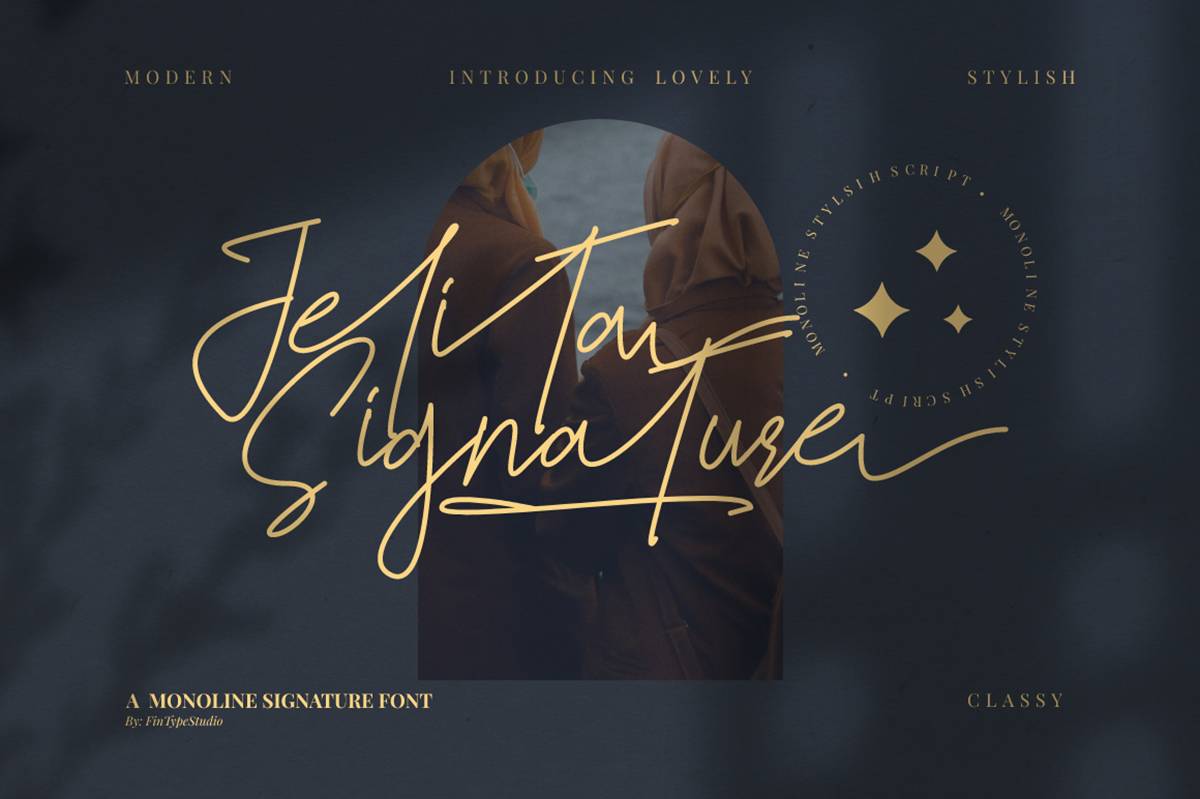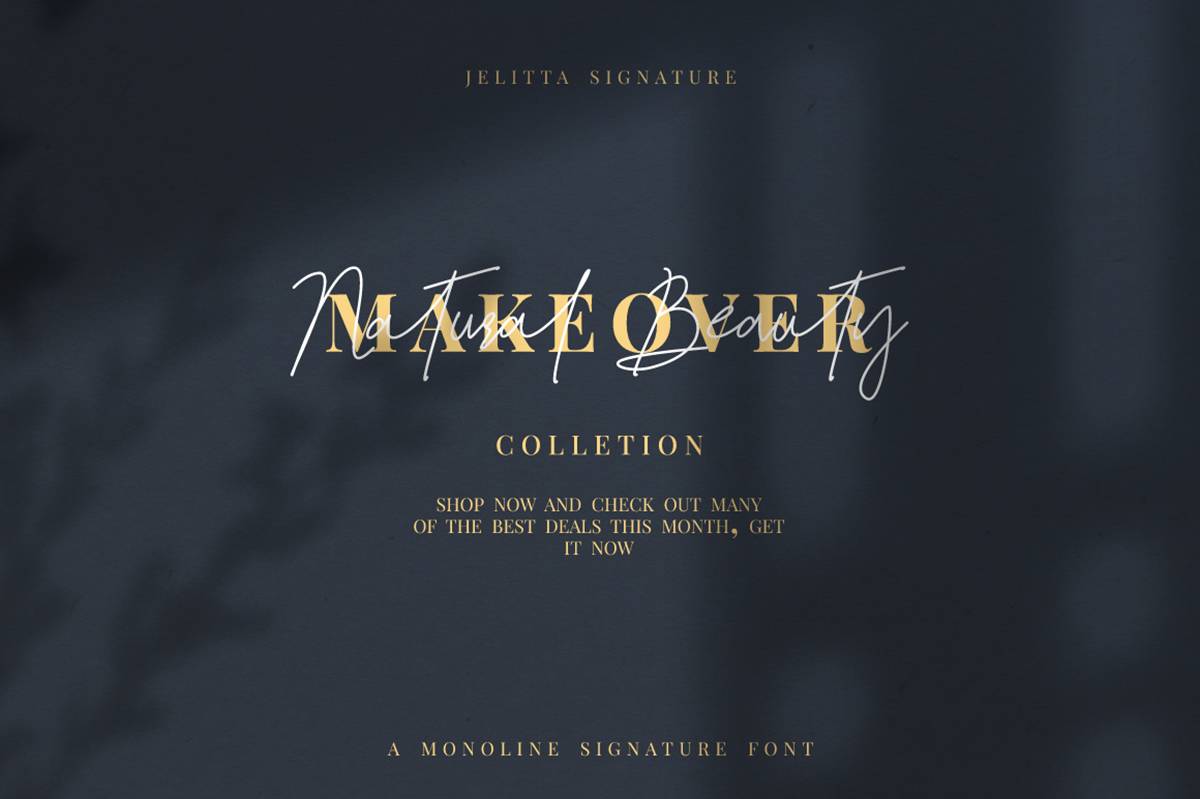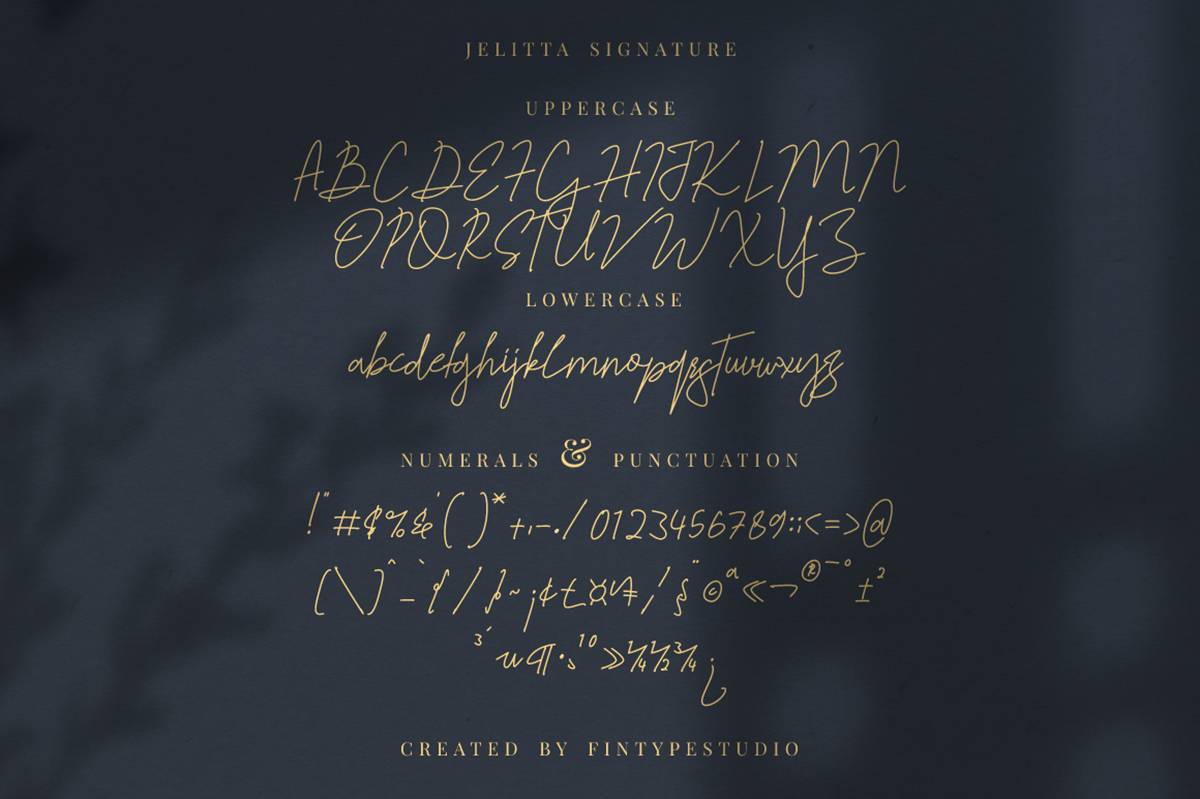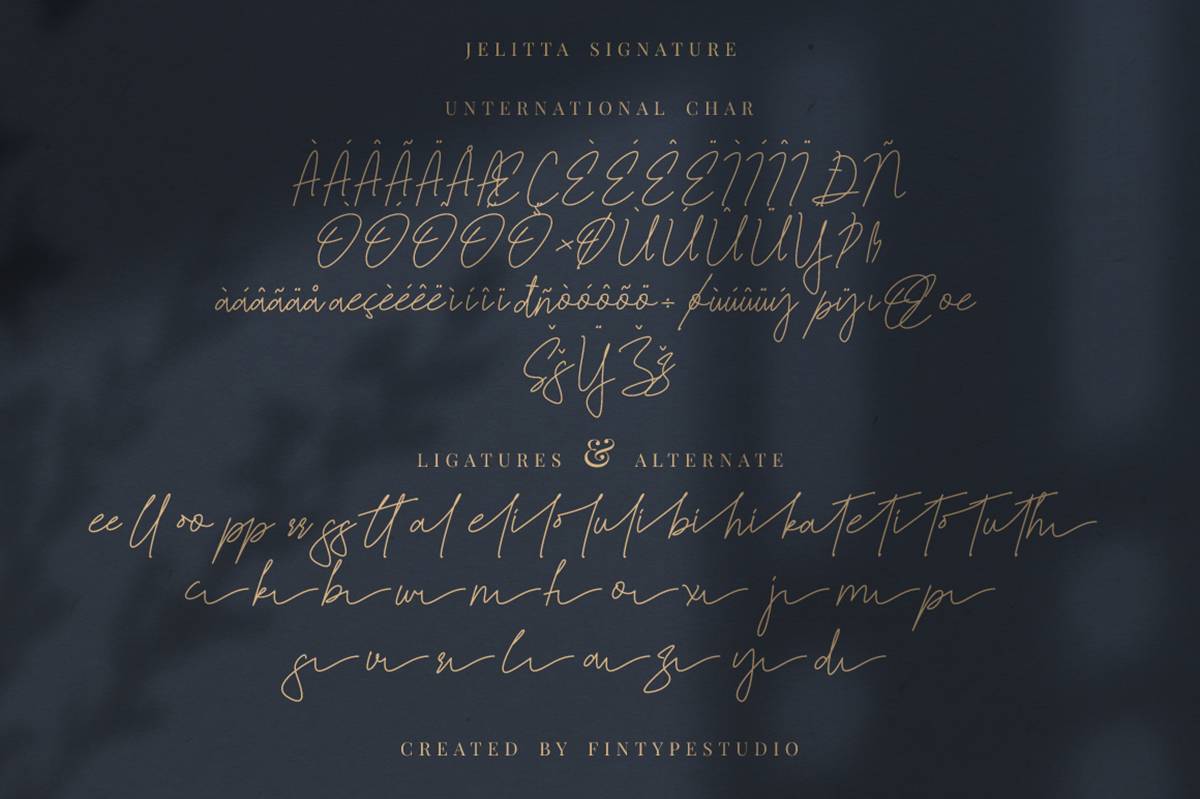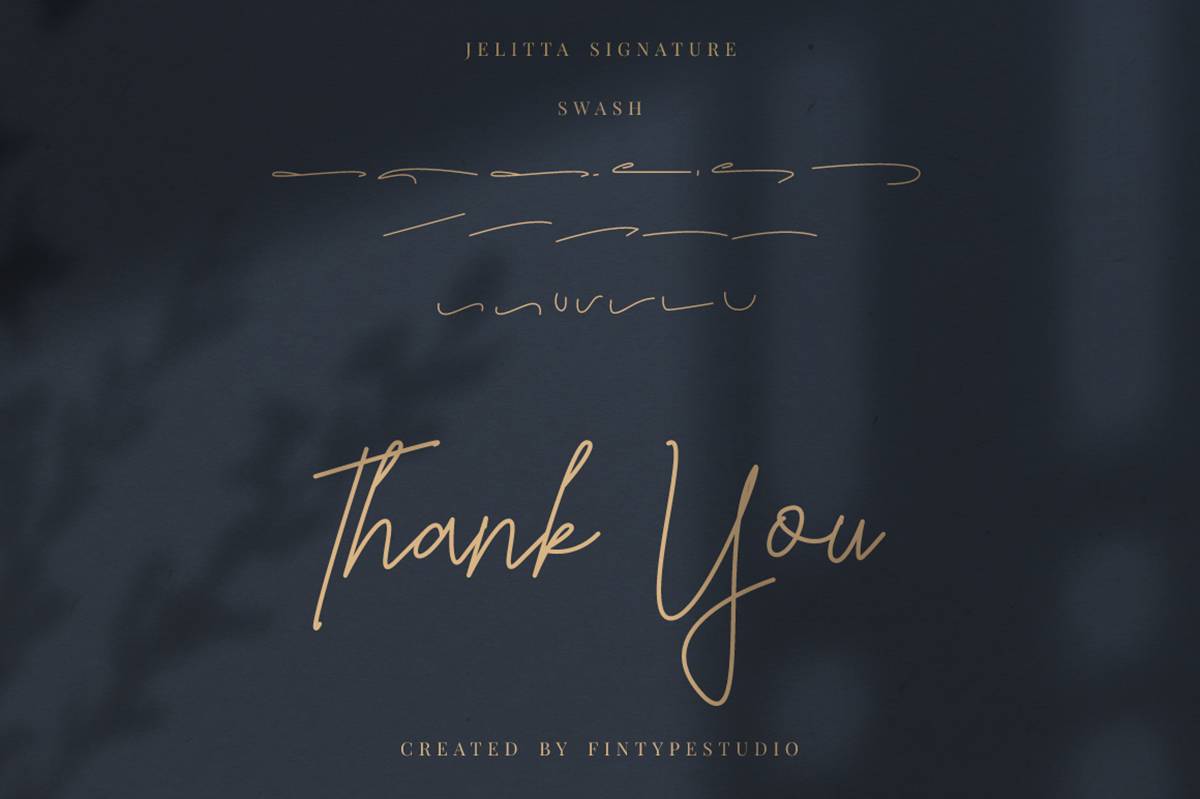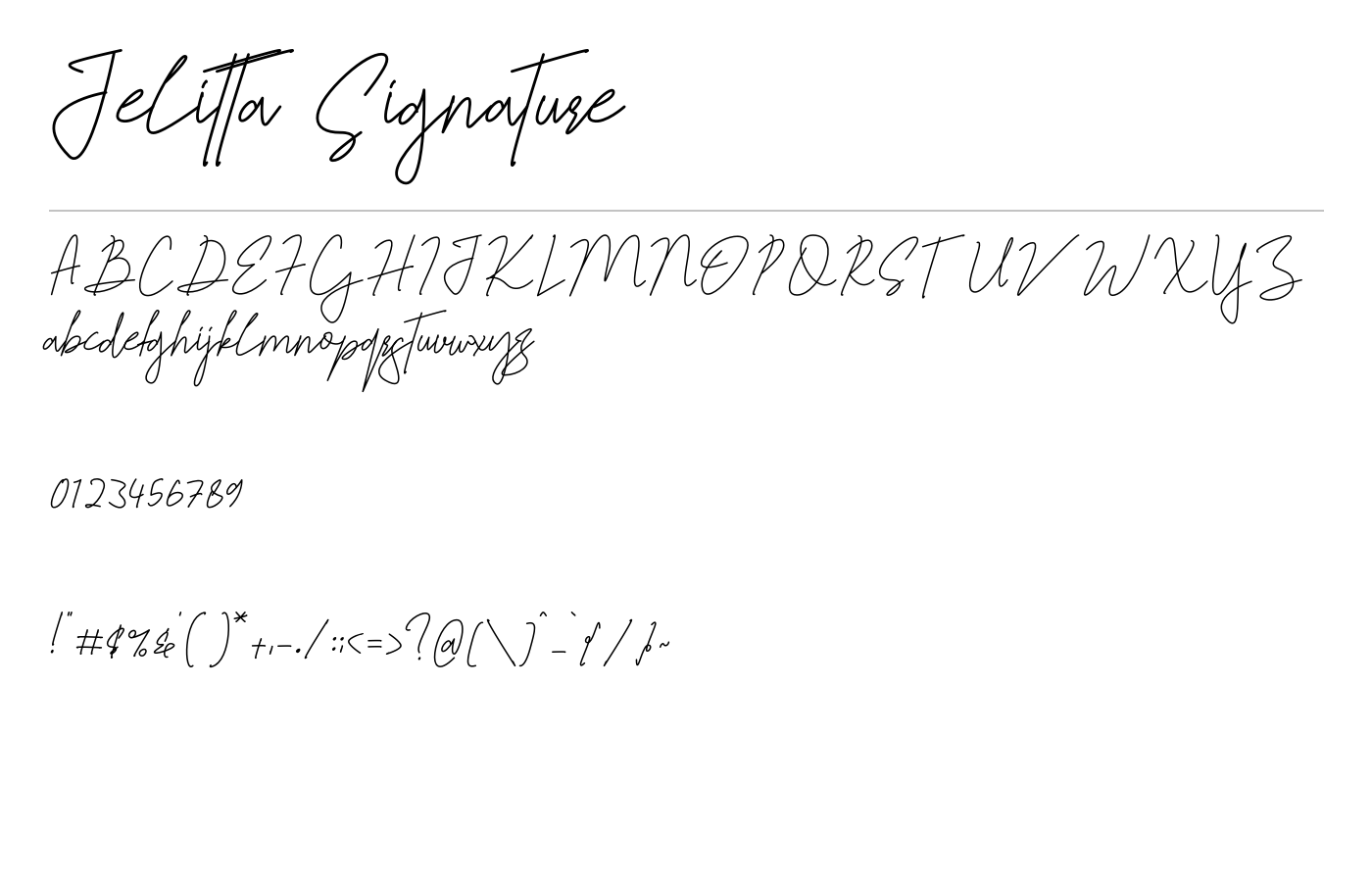
Jelitta Signature Font is a delicate and elegant handwritten script that mimics natural, graceful penmanship with its thin, flowing strokes and slightly irregular letterforms. Its light weight and airy style give it a personal, sophisticated feel, making it ideal for branding, invitations, and any design that seeks to convey a refined, intimate touch. This font works beautifully for fashion, luxury, and creative projects where a stylish, authentic signature look is desired.
Jelitta Signature Font
About Jelitta Signature Font
| Font family | Jelitta Signature Font |
| Designer | FinTypeStudio |